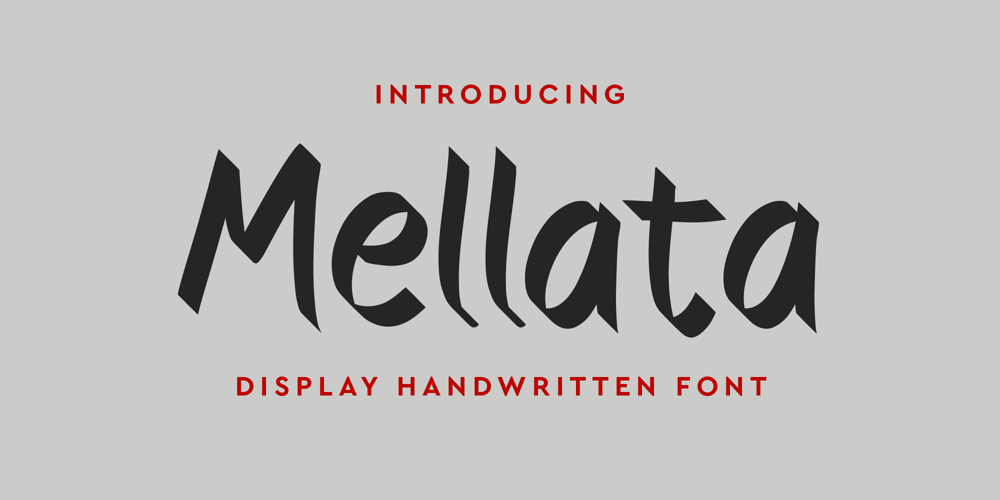
Mellata Font Family was designed by Iwan Alwan and published by Artiveko. Mellata contains 1 styles and family package options. Mellata is a unique handwritten font designed by Iwan Alwan, featuring distinctive variations in its uppercase and lowercase characters. It supports multiple languages, making it versatile for various design projects. Mellata’s charming and personal touch adds an artistic flair to any text, enhancing the visual appeal of your work.